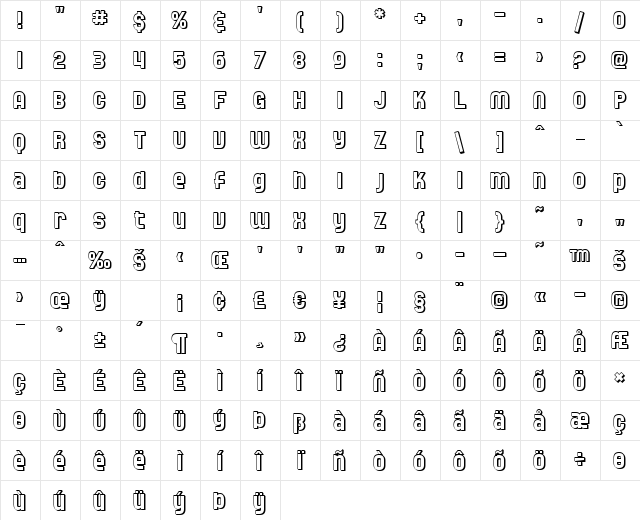
SF Speedwaystar Shaded Regular
SF Speedwaystar Shaded Family
Design Context for SF Speedwaystar Shaded
SF Speedwaystar Shaded is a composed and adaptable typeface that performs quietly and consistently across a wide range of design contexts.
Pro Tip: Use SF Speedwaystar Shaded in both headline and body roles to test its range before committing to a single application.